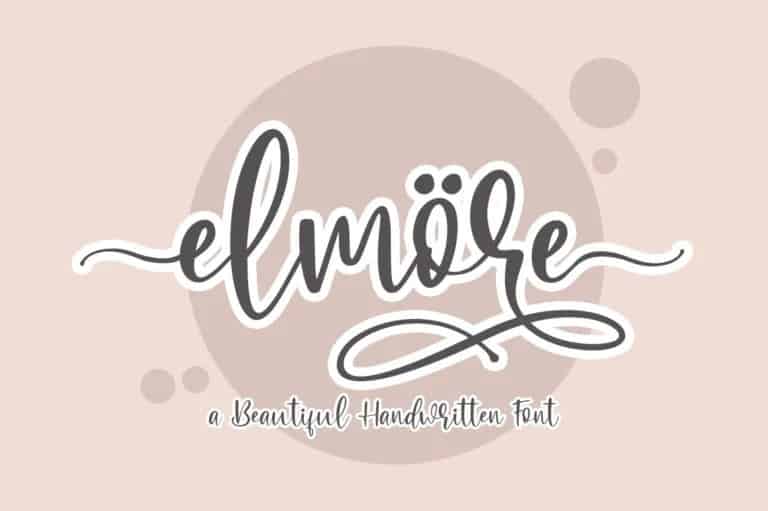
Elmore Calligraphy Font
Elmore Calligraphy Font is a beautiful and sweet calligraphy typeface. It’s fresh, modern and elegant. Hand-drawn design elements allow you to create many beautiful typographic designs in an instant like branding, web design and editorial, prints, crafts, quotes, It’s great for logotypes, wedding invitations, romantic cards, labels, packaging, spelling of names and others.
If you are needing a touch of casual modern calligraphy for your designs, this font was created for you!